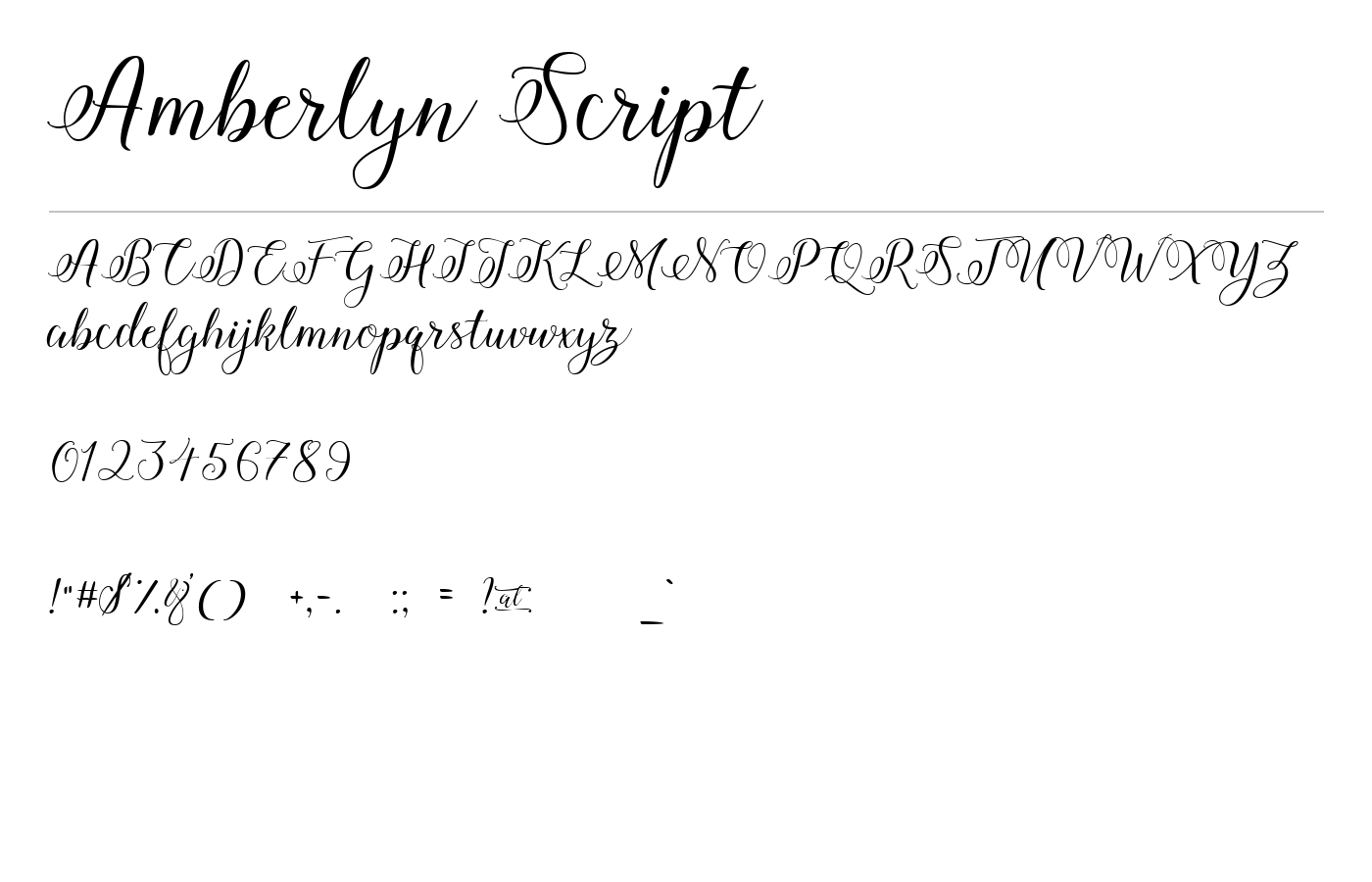
Amberlyn Script is an elegant, flowing script font with delicate, thin strokes and graceful swashes that evoke a sense of sophistication and charm. Its tall, slender letterforms and stylish flourishes make it perfect for luxury branding, wedding invitations, and upscale editorial designs where a refined, romantic touch is desired. This font shines in headlines, logos, and decorative text, adding a personalized, artistic flair to any project.
Amberlyn Script Font
About Amberlyn Script Font